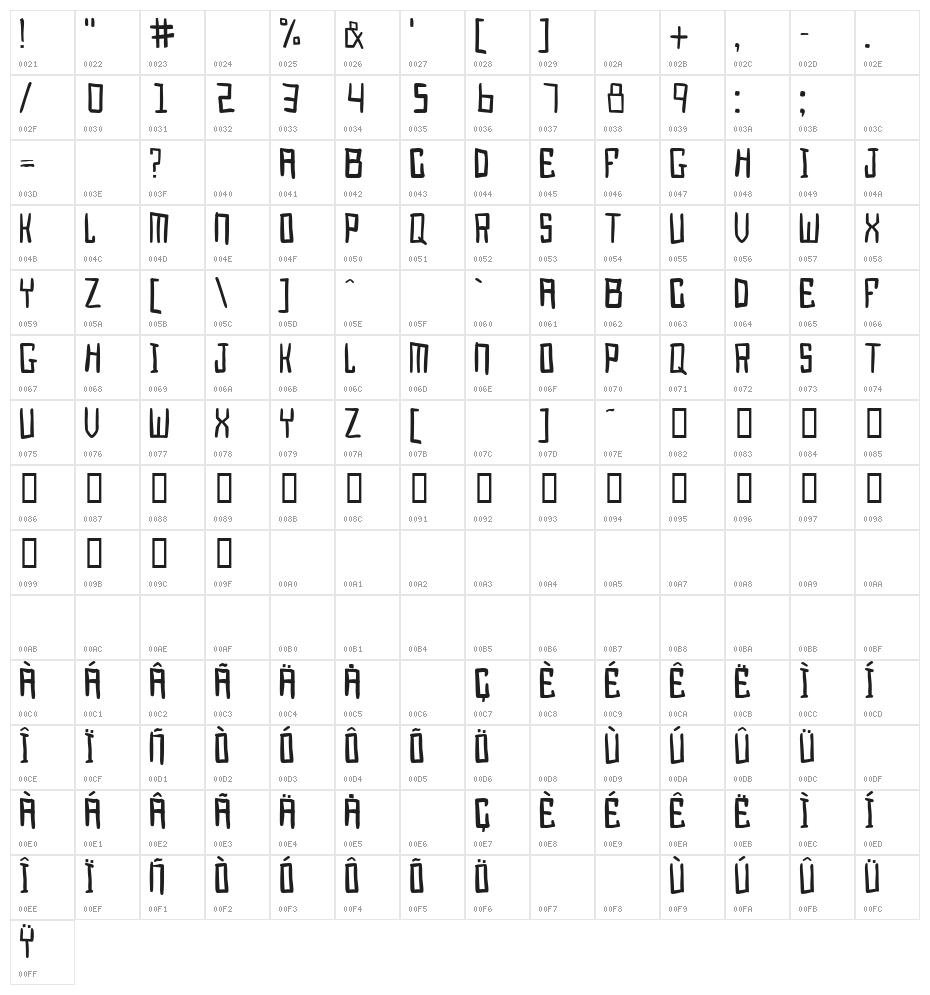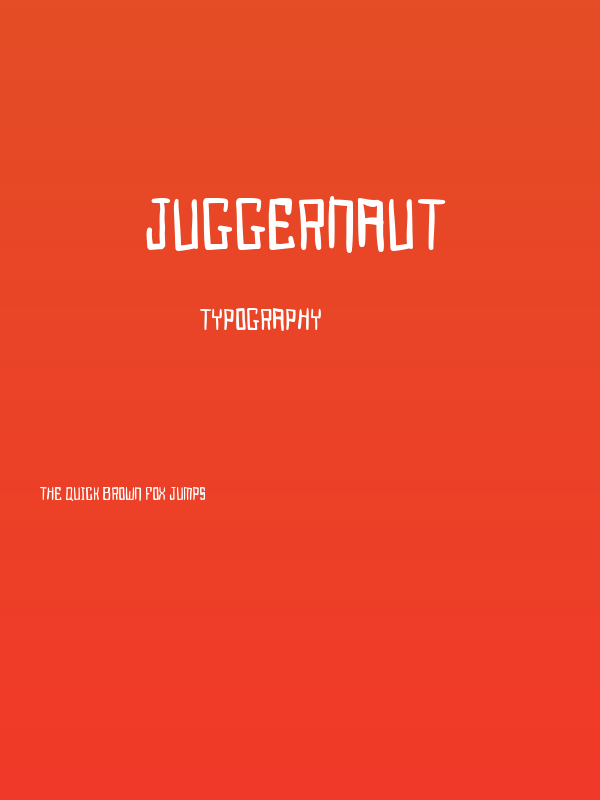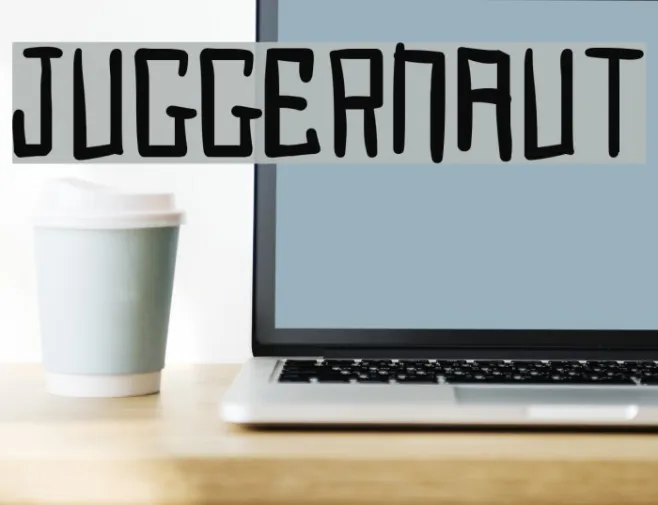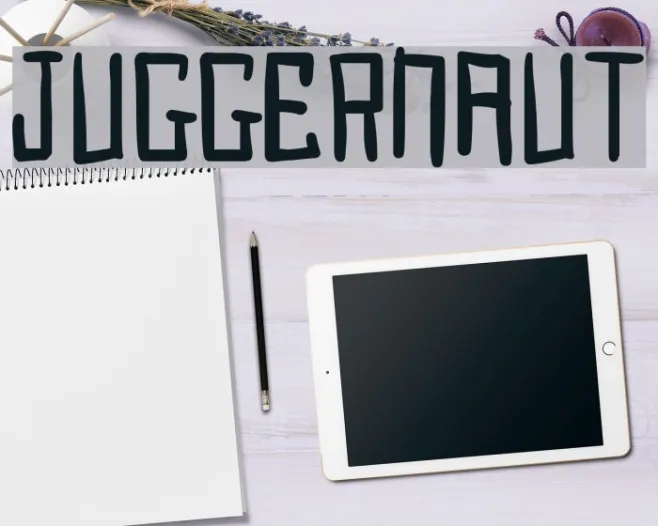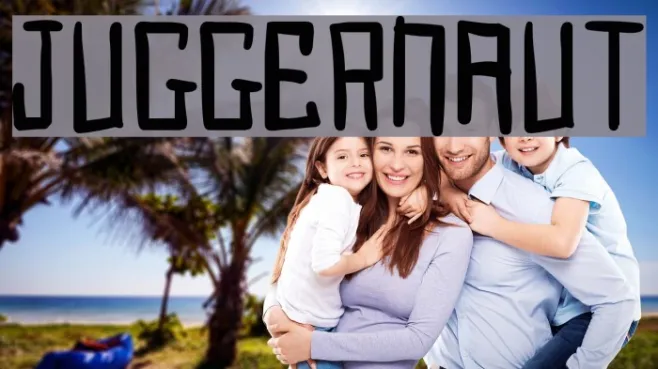
Juggernaut Font
Juggernaut Description
This font features a bold and assertive style with a hand-drawn appearance. The characters are tall and slightly condensed, giving them a strong presence. The strokes are uneven, adding a playful and informal touch. The uppercase and lowercase letters maintain a consistent height, which enhances readability. The numerals and special characters follow the same design principles, ensuring uniformity across all glyphs. This font's unique style makes it suitable for projects that require a bold and eye-catching display.
| Overall Style | Playful, Informal |
| Proposed Projects | Ideal for posters, comic books, children's books, and creative branding projects. |